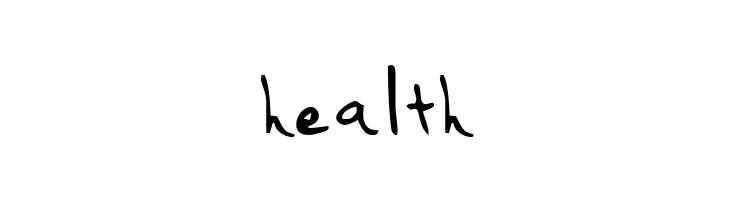
A bold, playful font with a hand-drawn, rounded style.
A playful, hand-drawn font with thin, irregular strokes and a whimsical style.
A decorative, geometric font with bold lines and unique shapes.
A versatile font with clean geometric and distressed grunge styles.
A modern, geometric sans-serif font with a clean and professional look.
A bold, geometric font with modern and angular characteristics.
A playful, textured font with a hand-drawn scribble style.
An ornate Gothic-style font with dramatic, intricate designs and bold strokes.
A modern, rounded sans-serif font with a bold weight and clean design.
A modern, rounded sans-serif font with a clean and approachable design.
A modern, rounded font with a slight italic slant and uniform stroke width.
A modern, light, and geometric sans-serif font with rounded edges.
A bold, geometric font with sharp angles and a modern, futuristic style.
A tall, slim font with elongated vertical strokes and narrow letterforms.